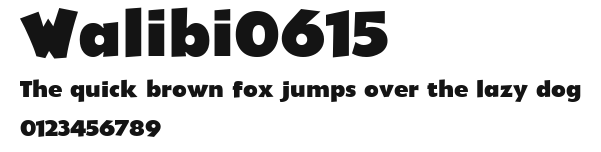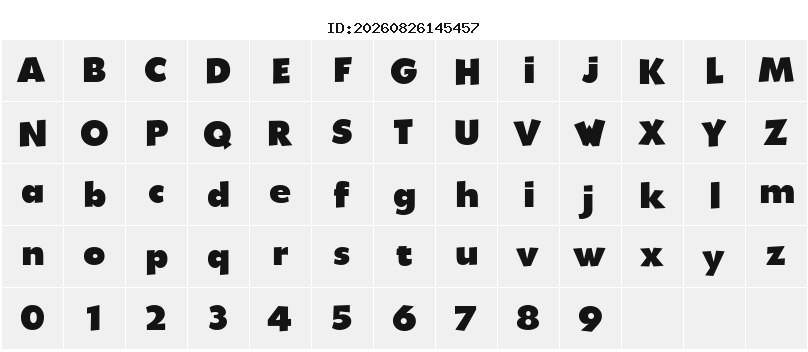
About Walibi0615.ttf
Walibi0615.ttf is a modern, elegant sans-serif font designed for ultimate readability and visual harmony. Perfect for branding, headlines, web design, and print materials.